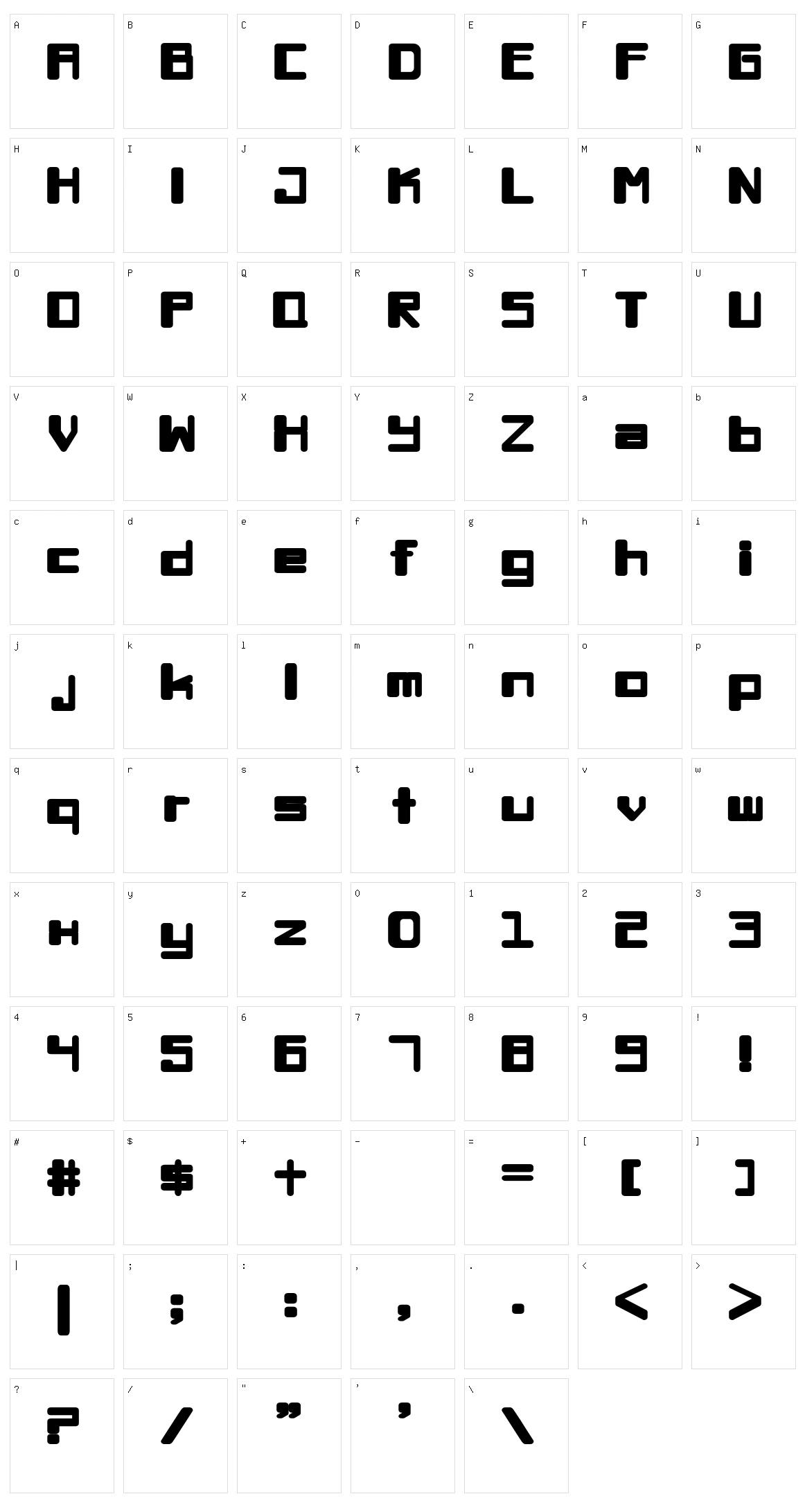
The free font Chiaroscuro is carefully designed by Naman Arora, showcasing a thoughtful balance of creativity and usability and falls under the Square font style. When you download the ZIP file, it contains only 143.21 KB of font files, making it lightweight and quick to download. Please review the license details below to understand permitted usage and distribution rights. If license information is not available, we recommend using this font for personal projects only or contacting the author directly for commercial usage permissions.